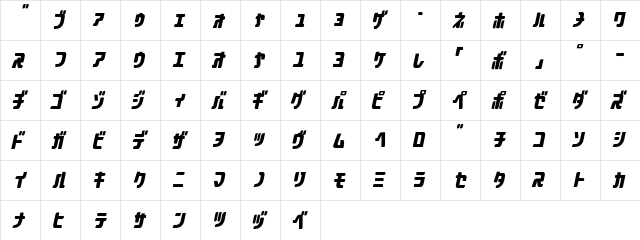
Aquasky20KAT Italic
Design Context for Aquasky20KAT Typeface
Aquasky20KAT is a composed and adaptable typeface that performs quietly and consistently across a wide range of design contexts. The dynamic lean of this cut emphasises speed and emphasis in any layout.
Pro Tip: Try Aquasky20KAT for annotation and caption copy alongside an upright companion — the contrast in angle creates a dynamic but ordered typographic system.